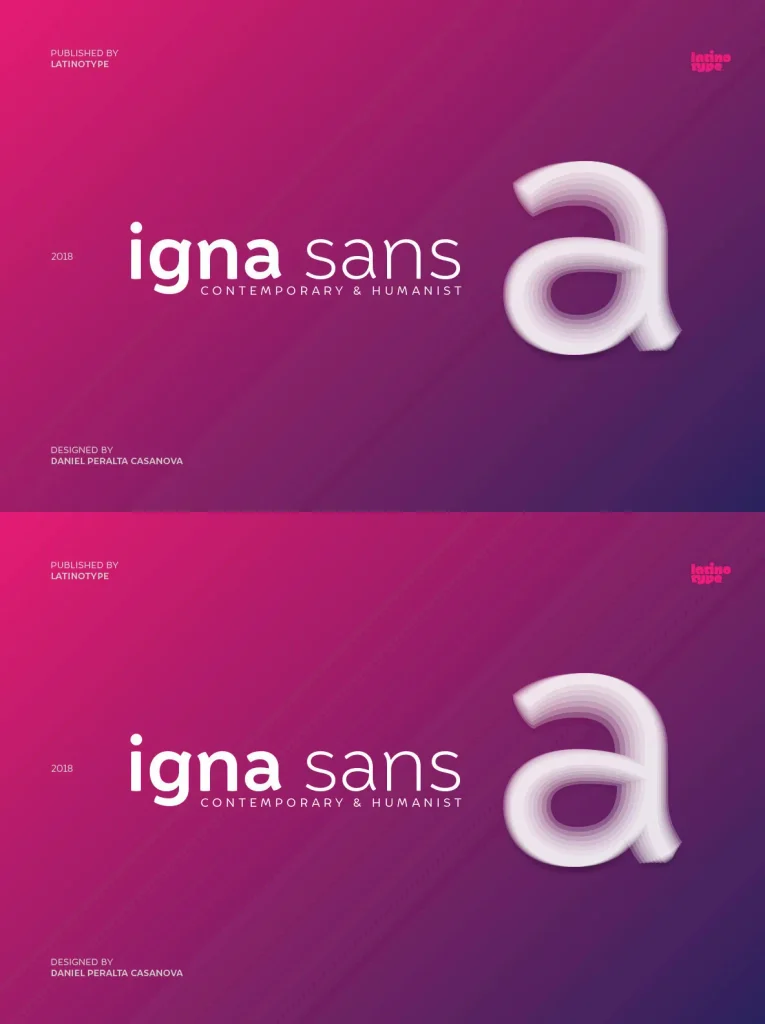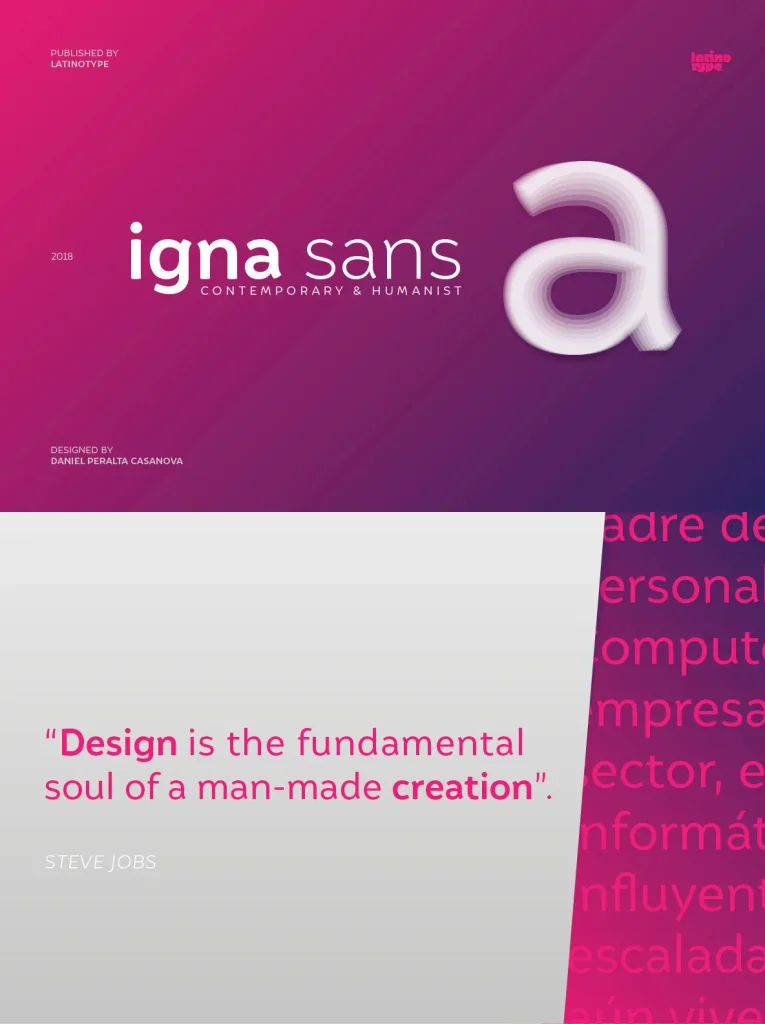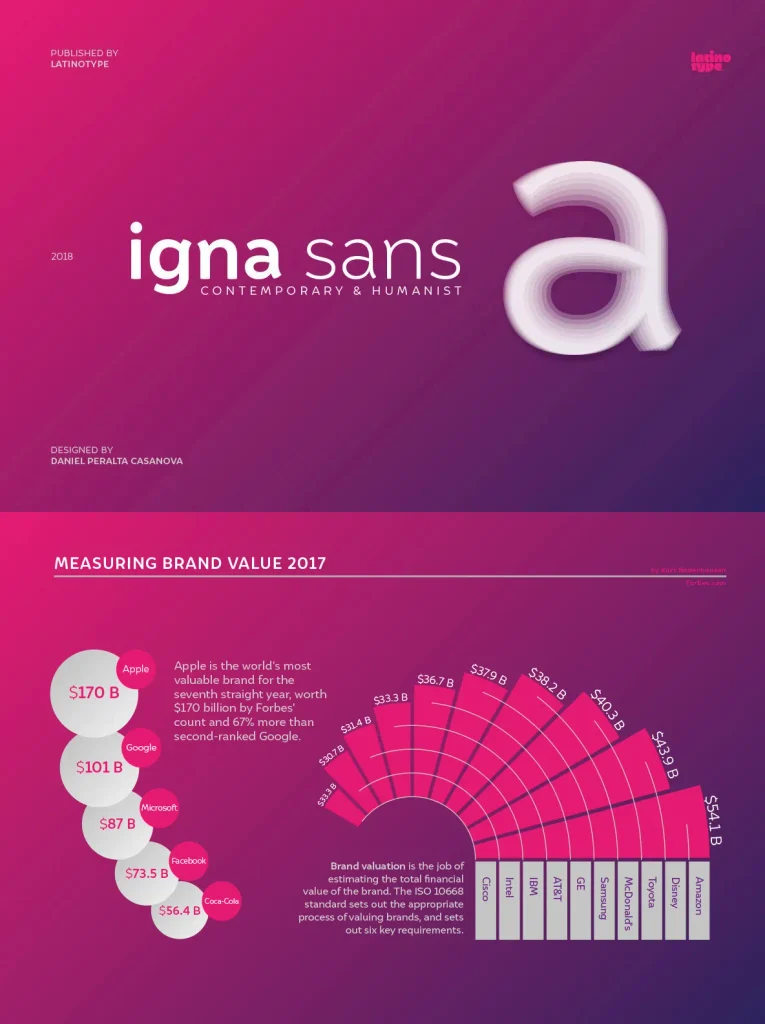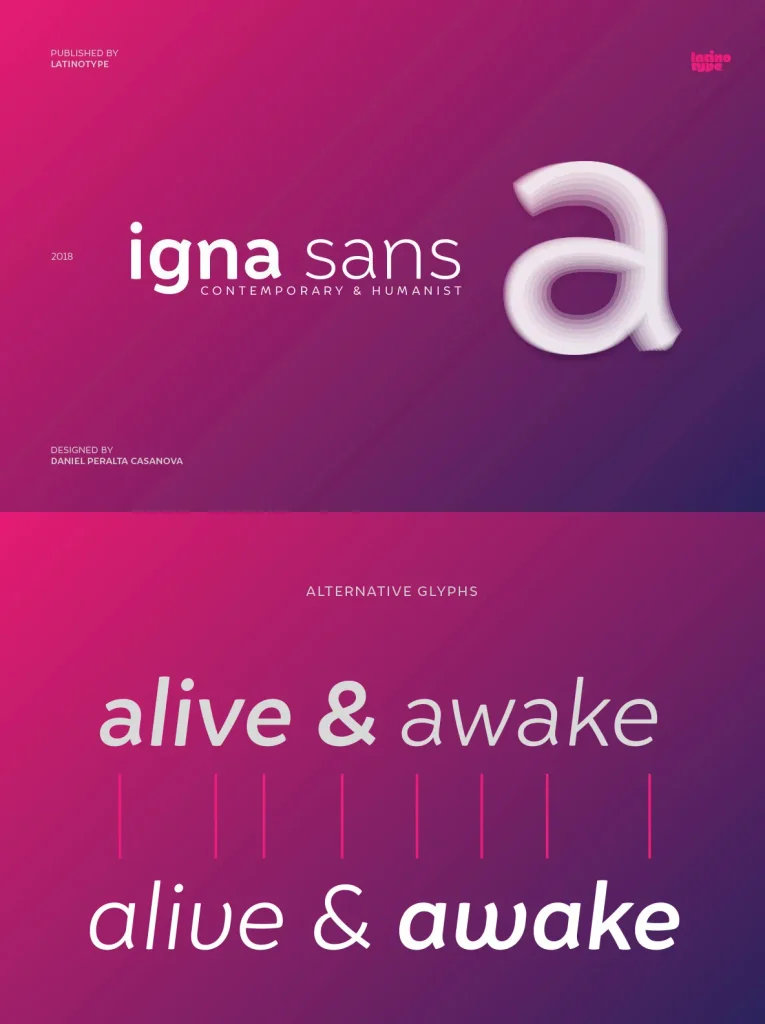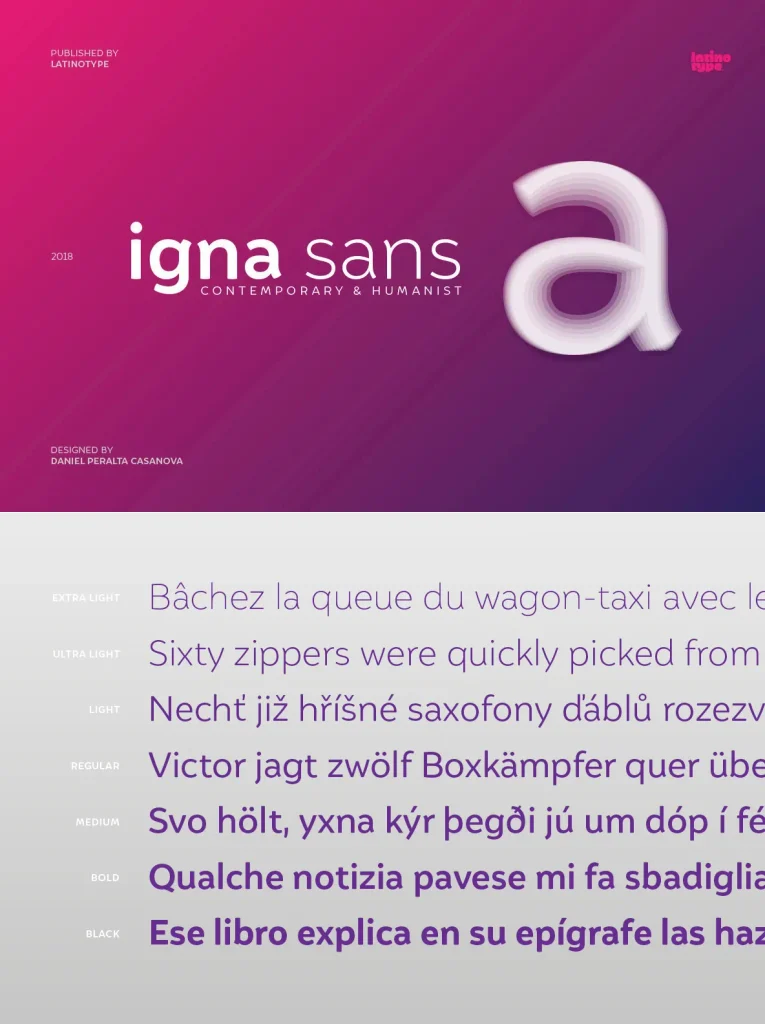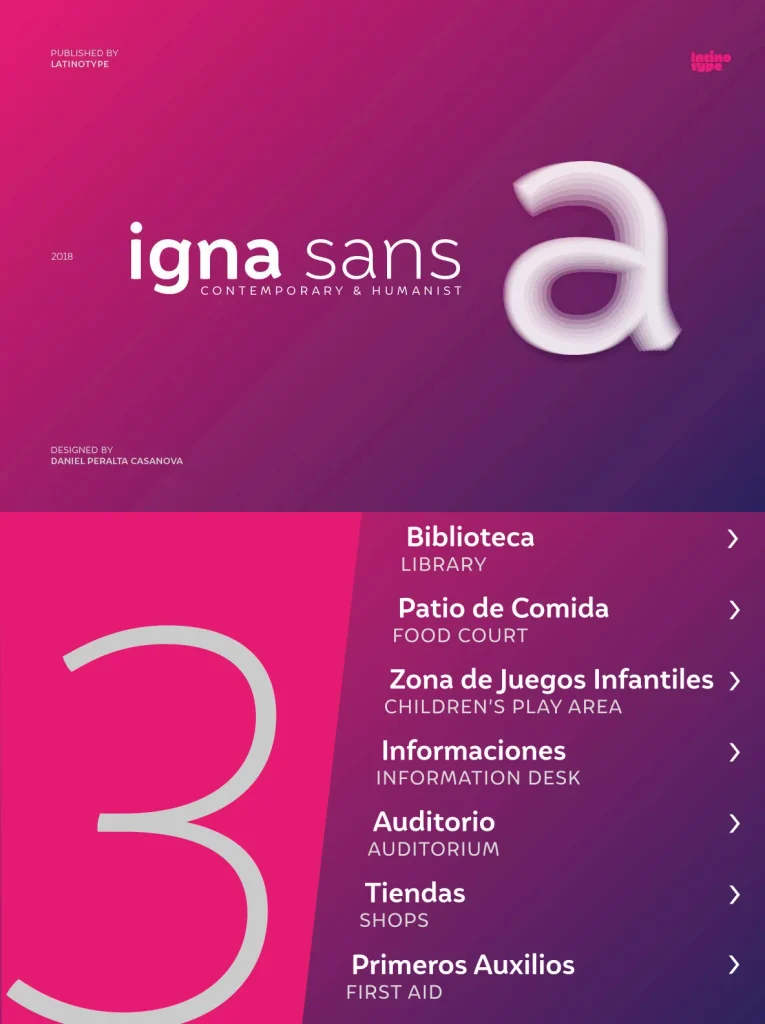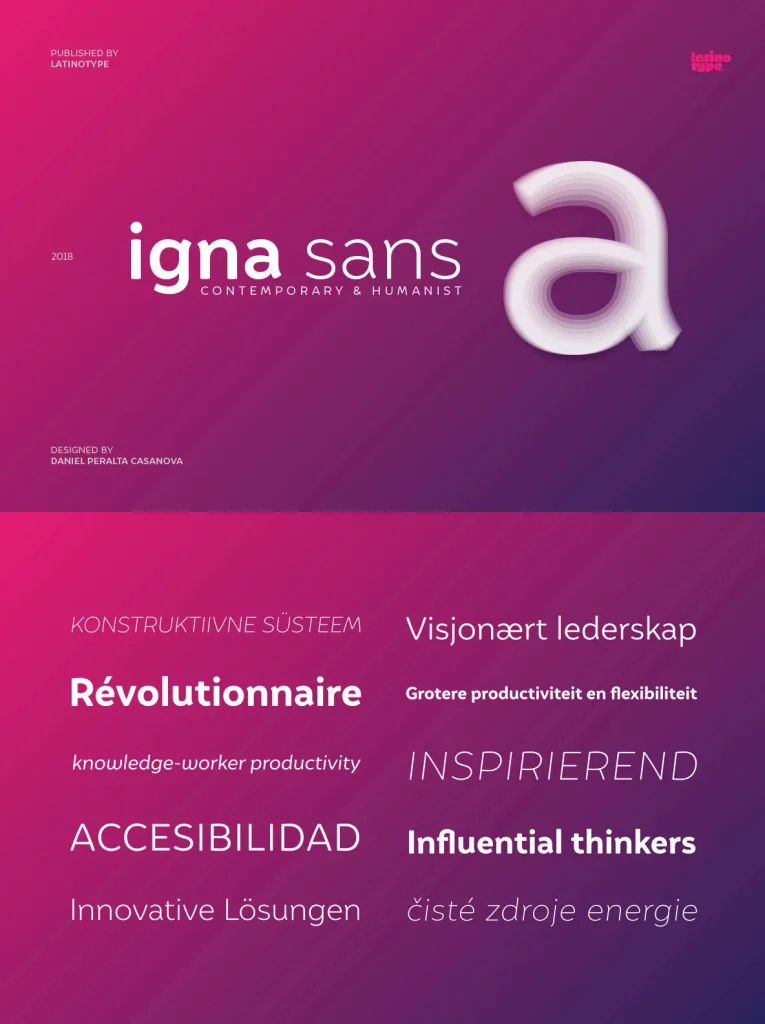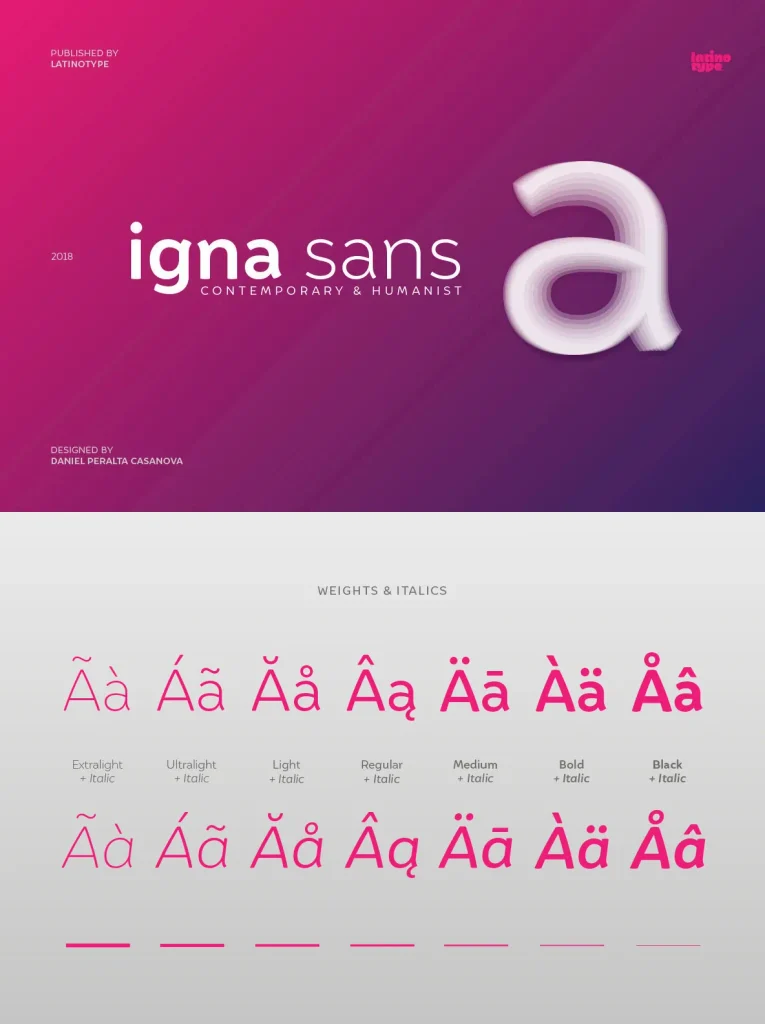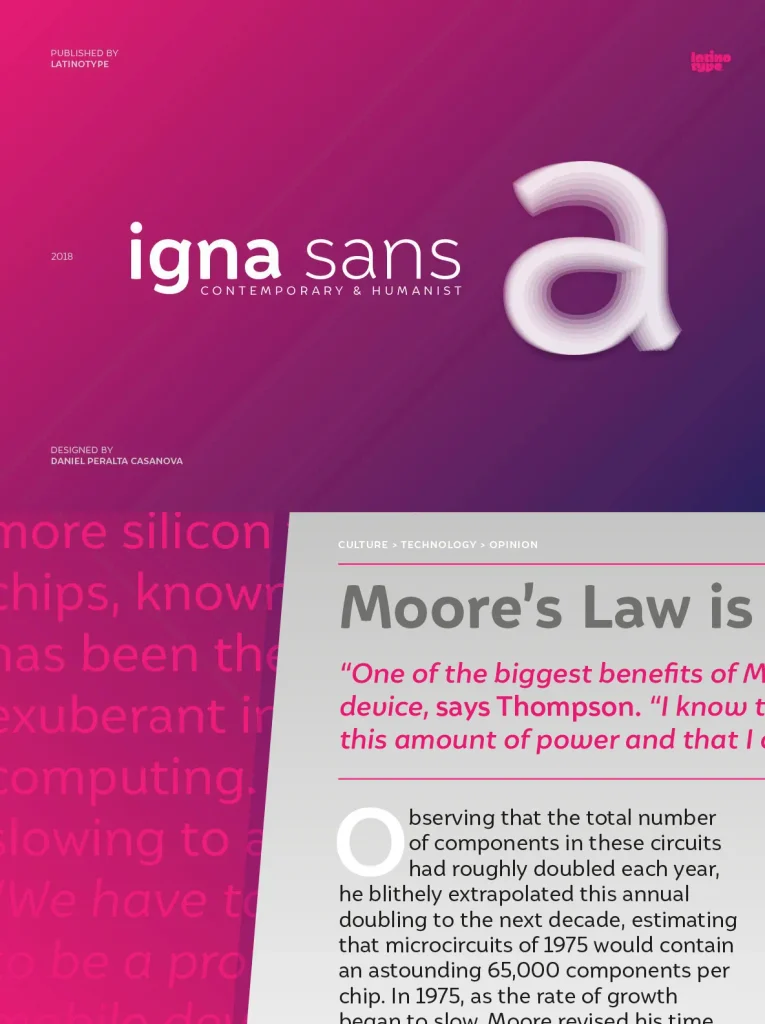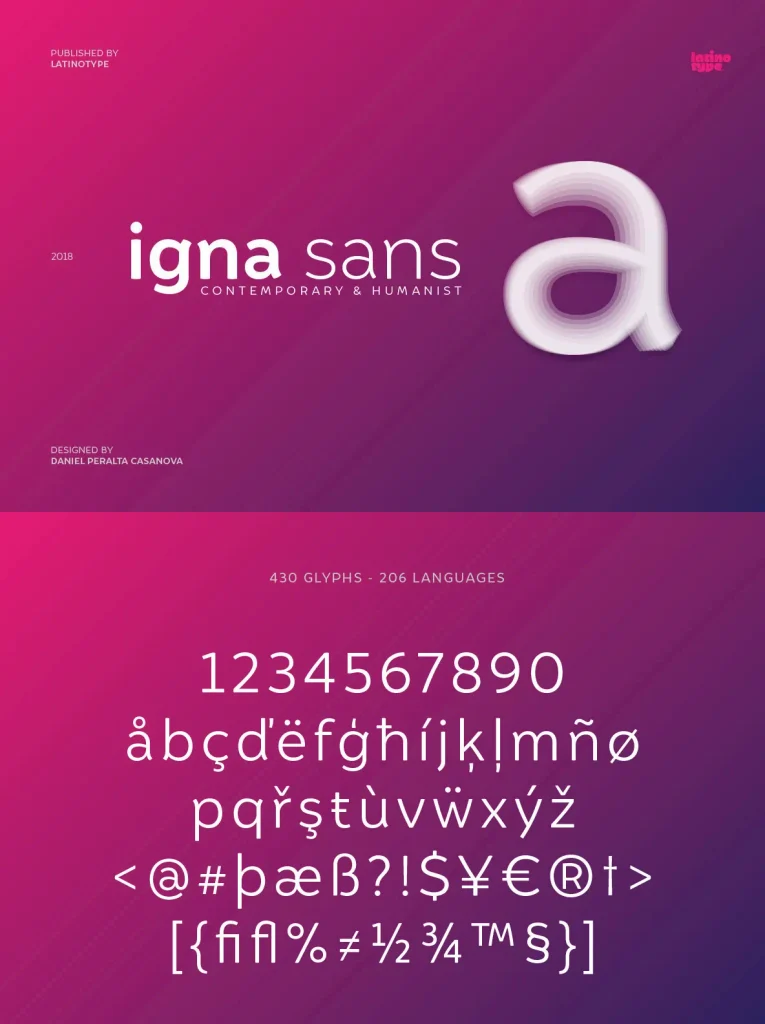
Igna Sans Font
Contemporary Humanist Functionality with Igna Sans
Igna Sans blends humanist qualities with modern appeal, resulting in a clear and versatile typeface. Designed for readability at every scale, it works seamlessly across advertising, corporate identities, branding, and retail product design. Its balanced proportions and clean lines ensure your content stands out while remaining highly legible.
This font adapts effortlessly to diverse design environments. Whether crafting a striking headline or setting body copy, Igna Sans maintains a cohesive visual identity. The contemporary touch makes it a reliable choice for professionals who prioritize accessibility and clarity without sacrificing style.
Key Features
Humanist roots with a modern aesthetic
Exceptional clarity at all sizes
Ideal for advertising, branding, and retail projects
Consistent letterforms for a unified appearance